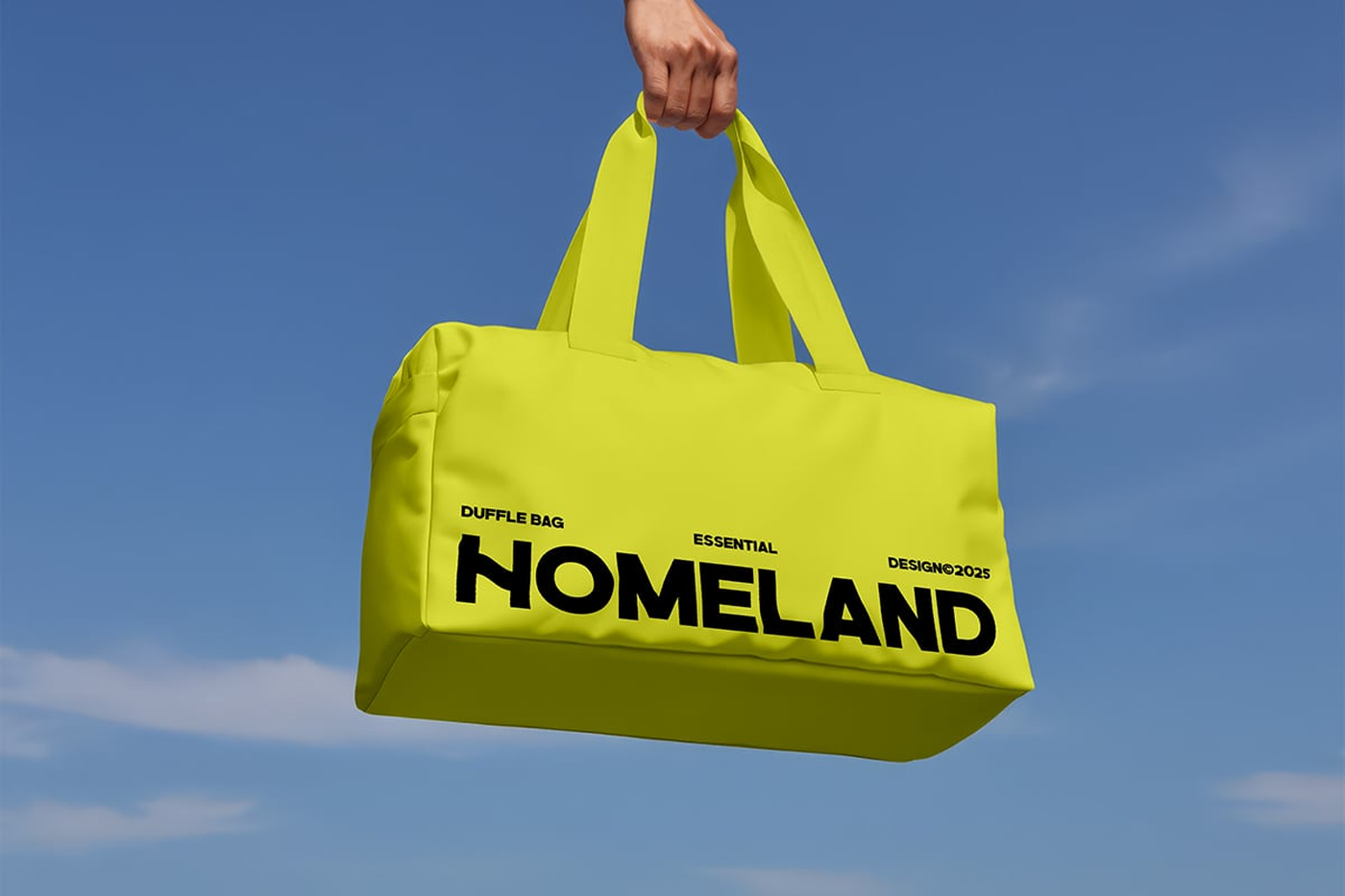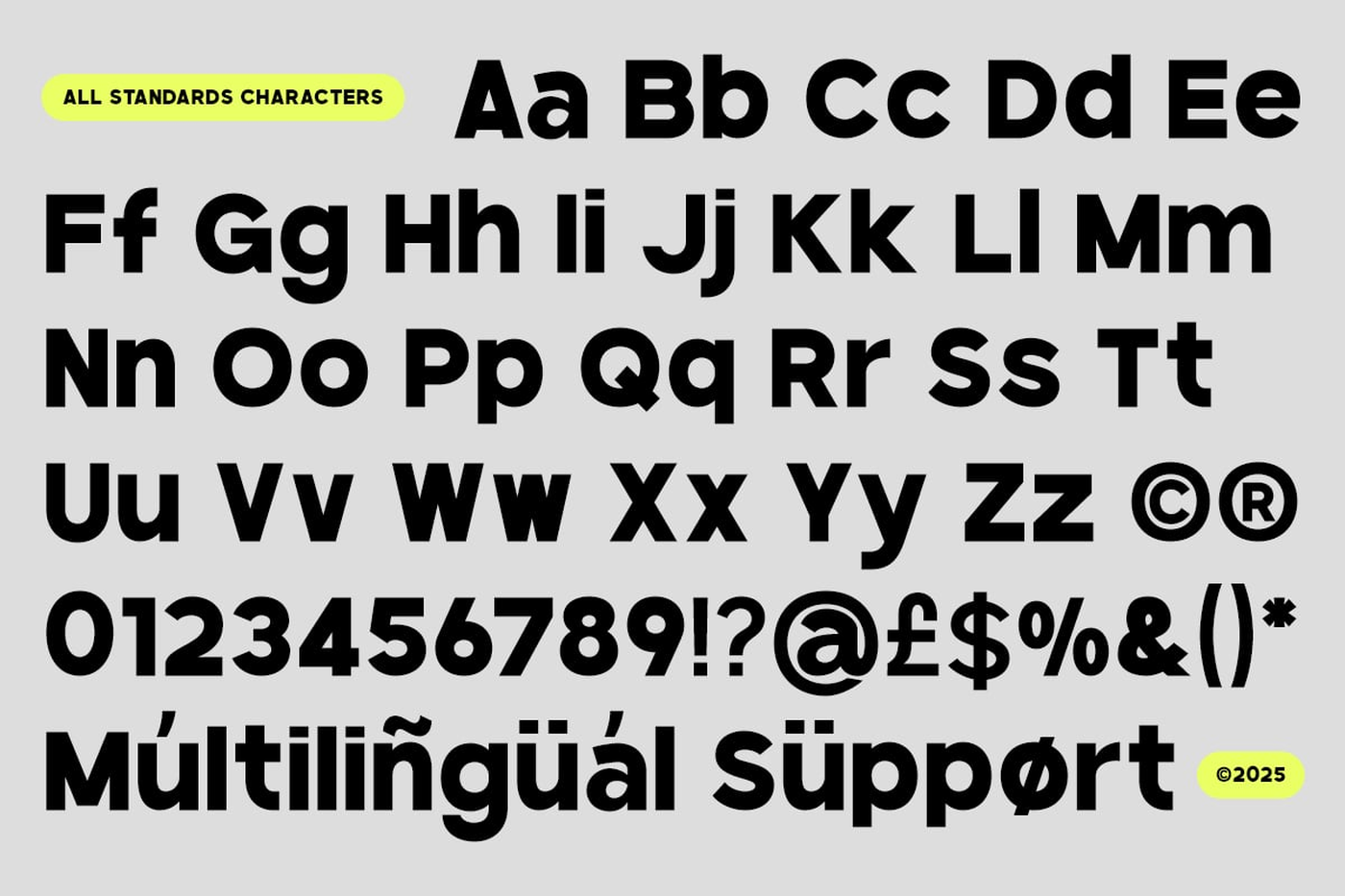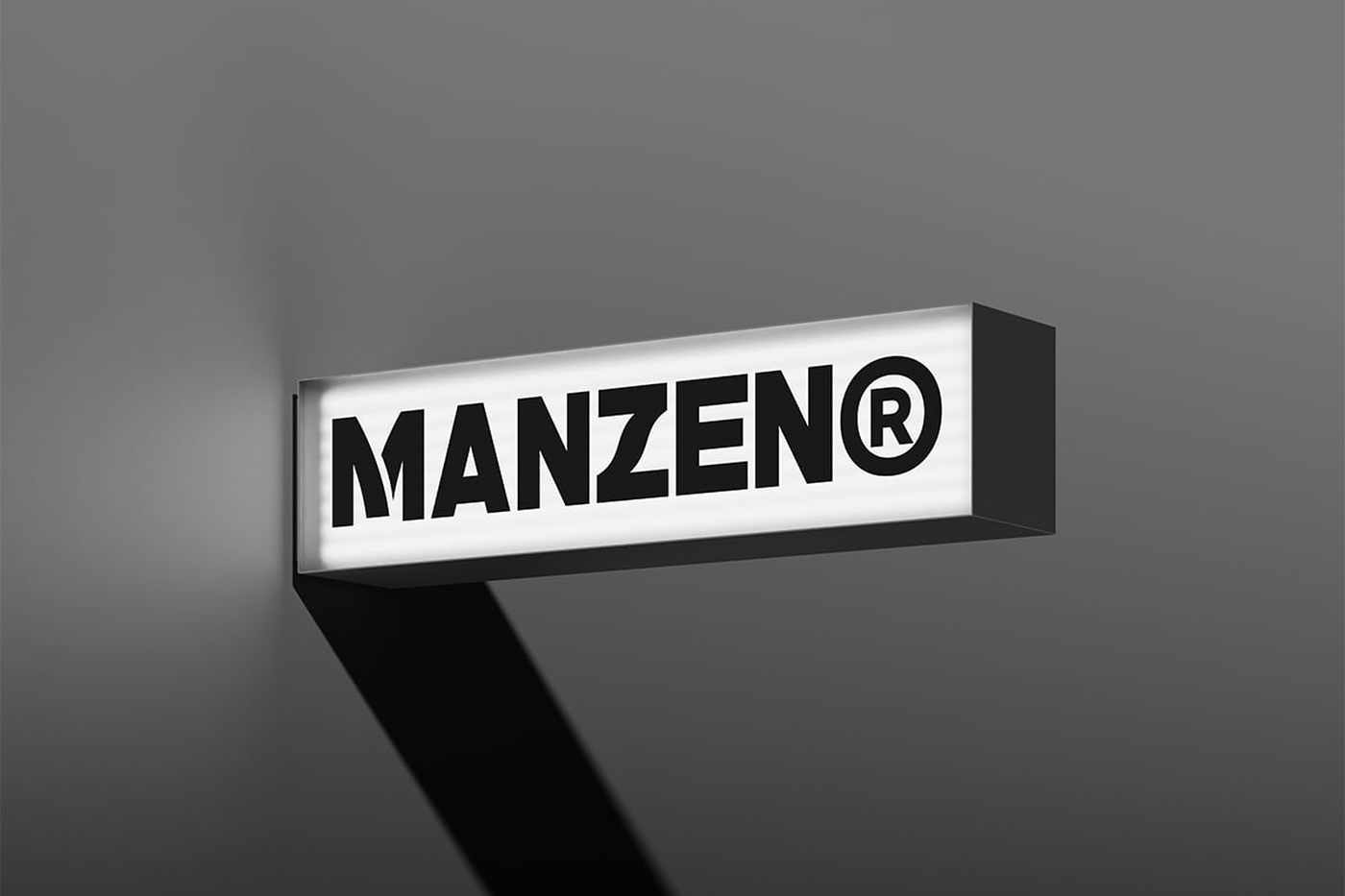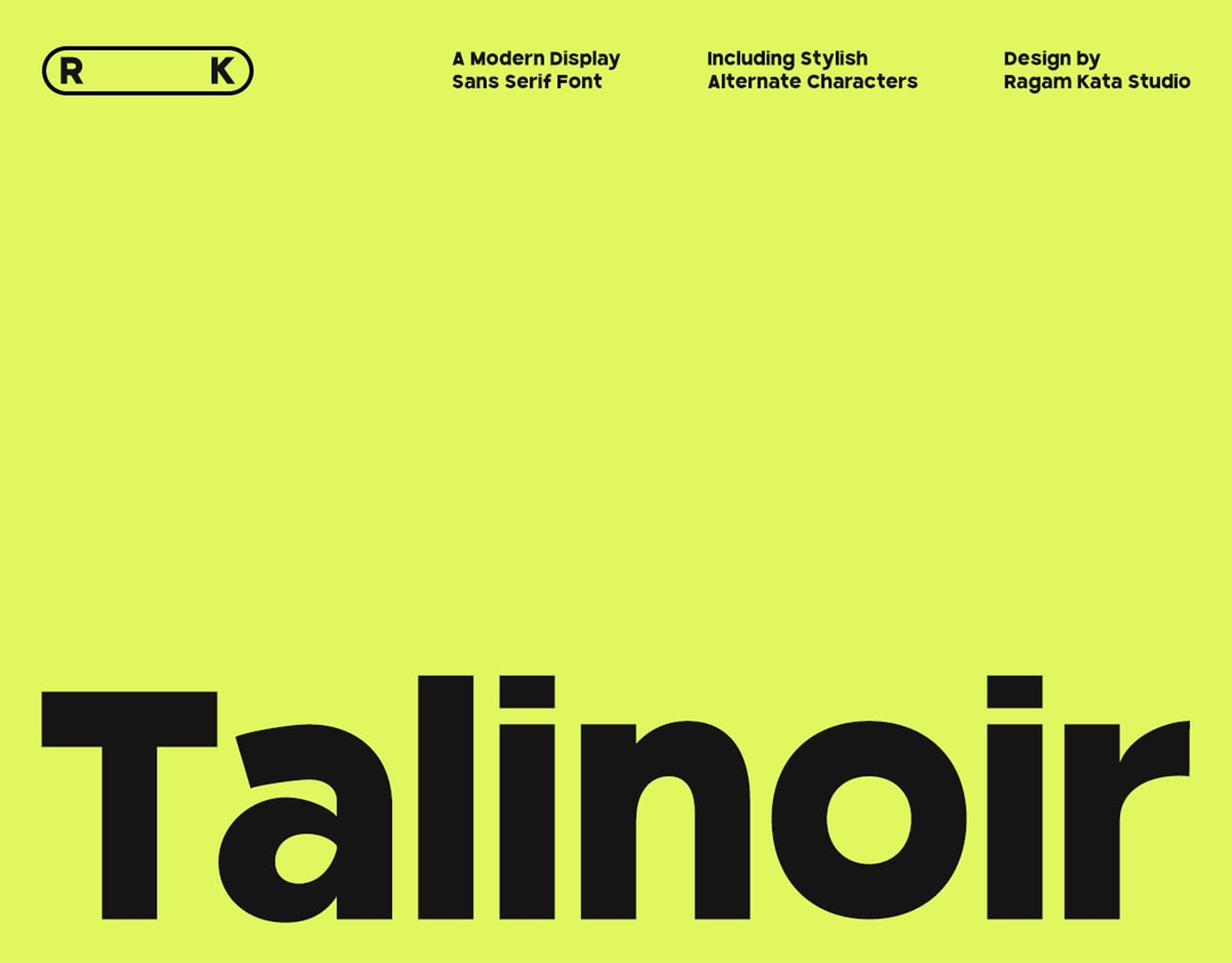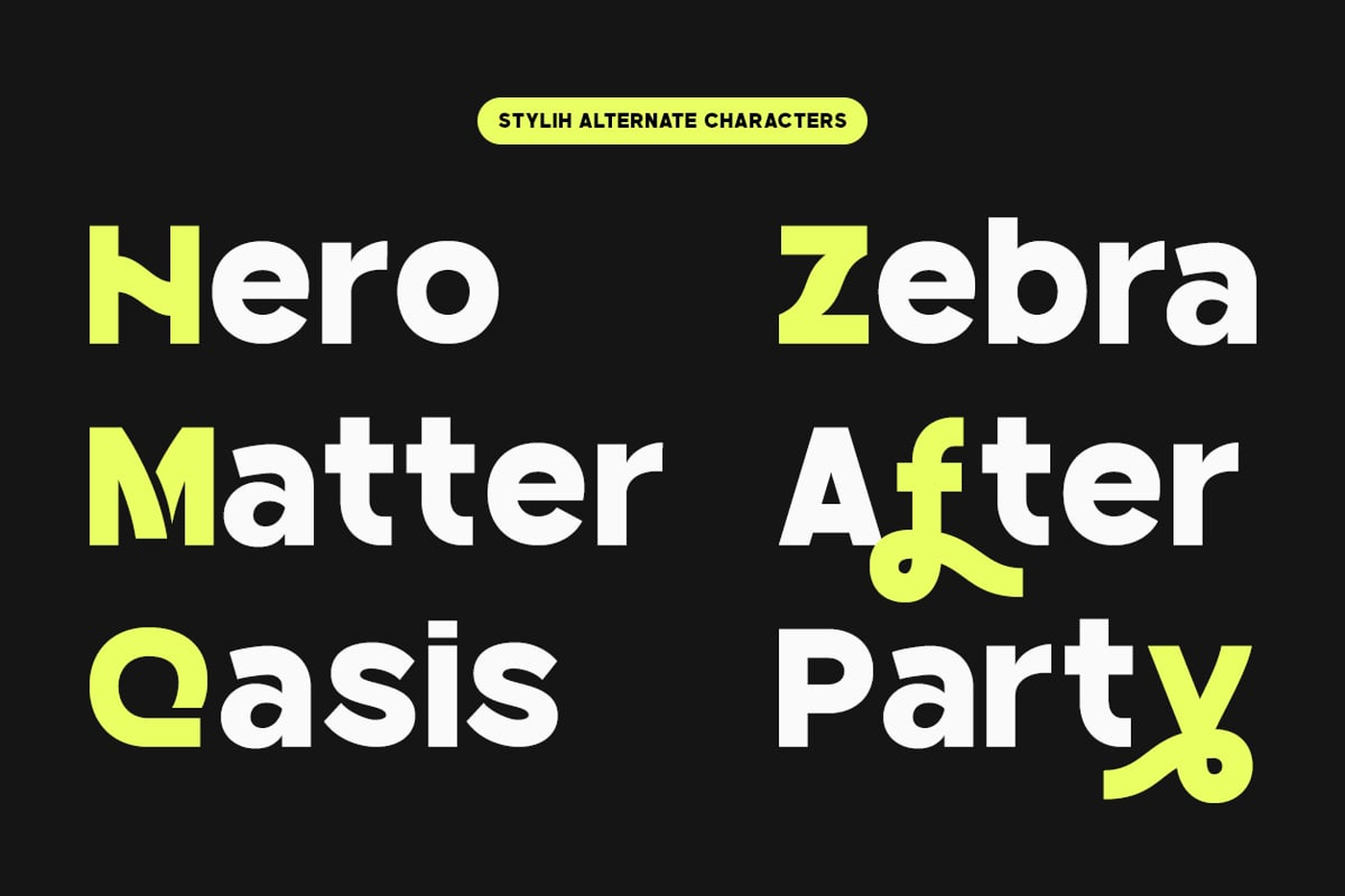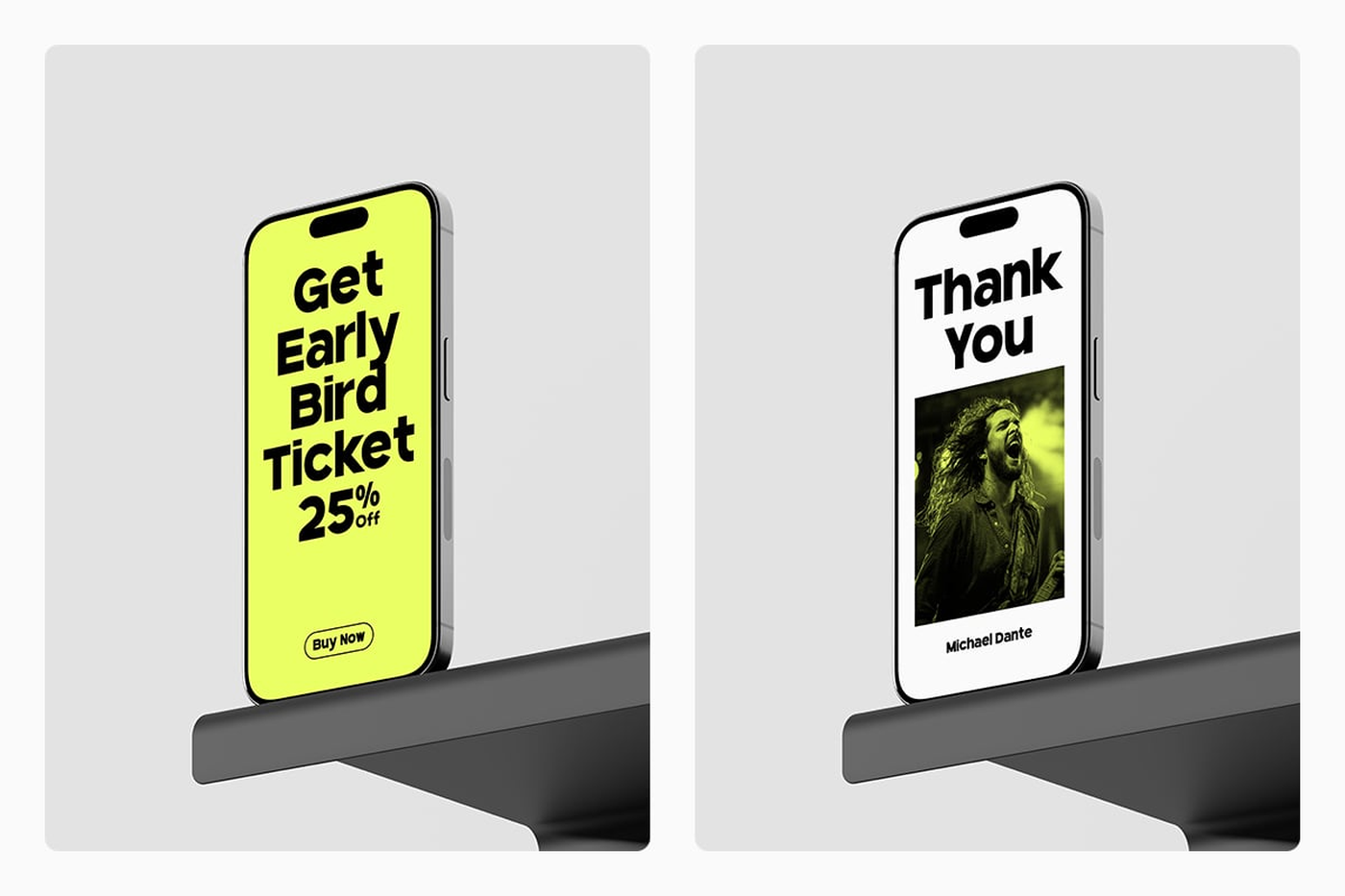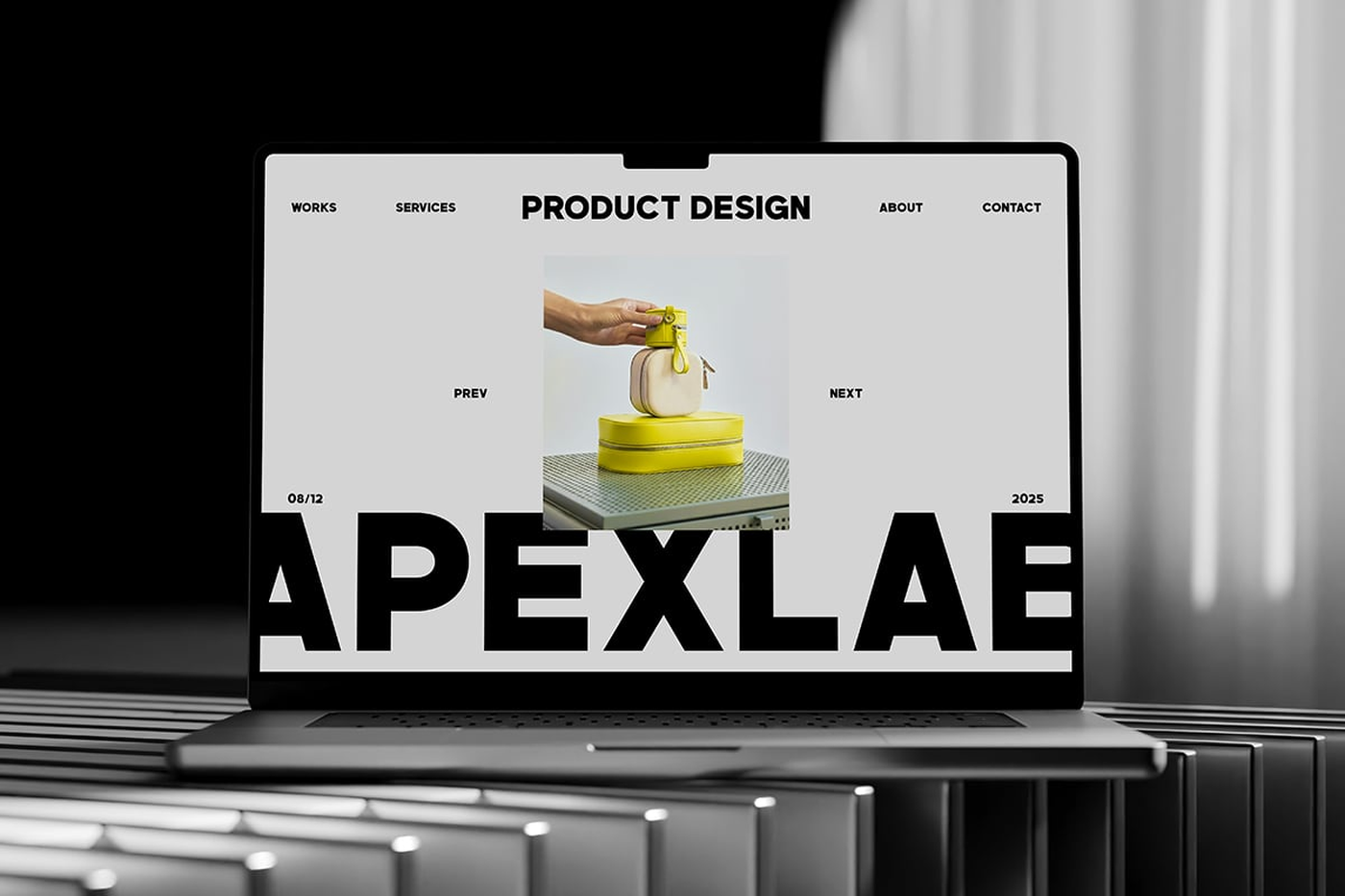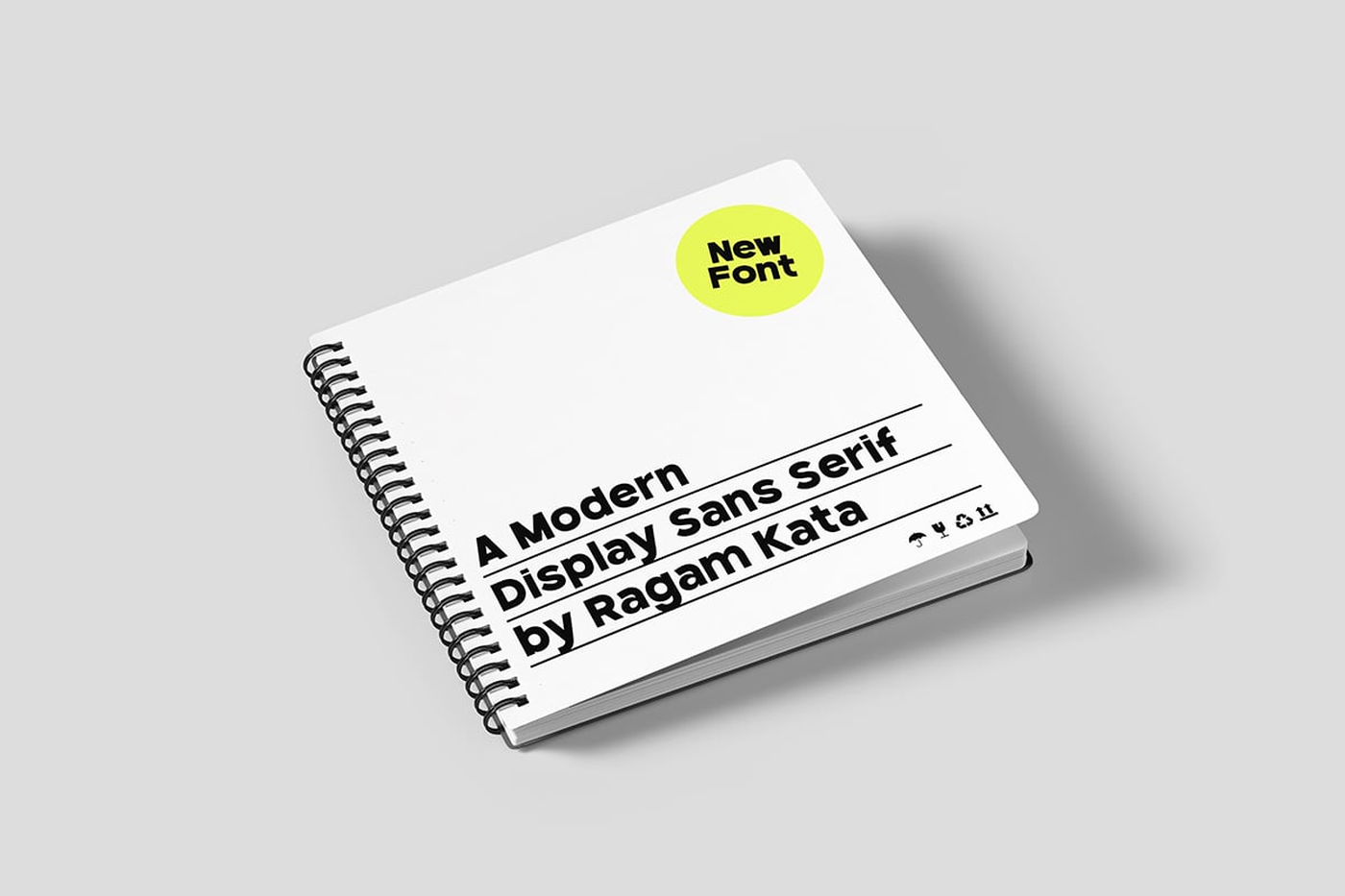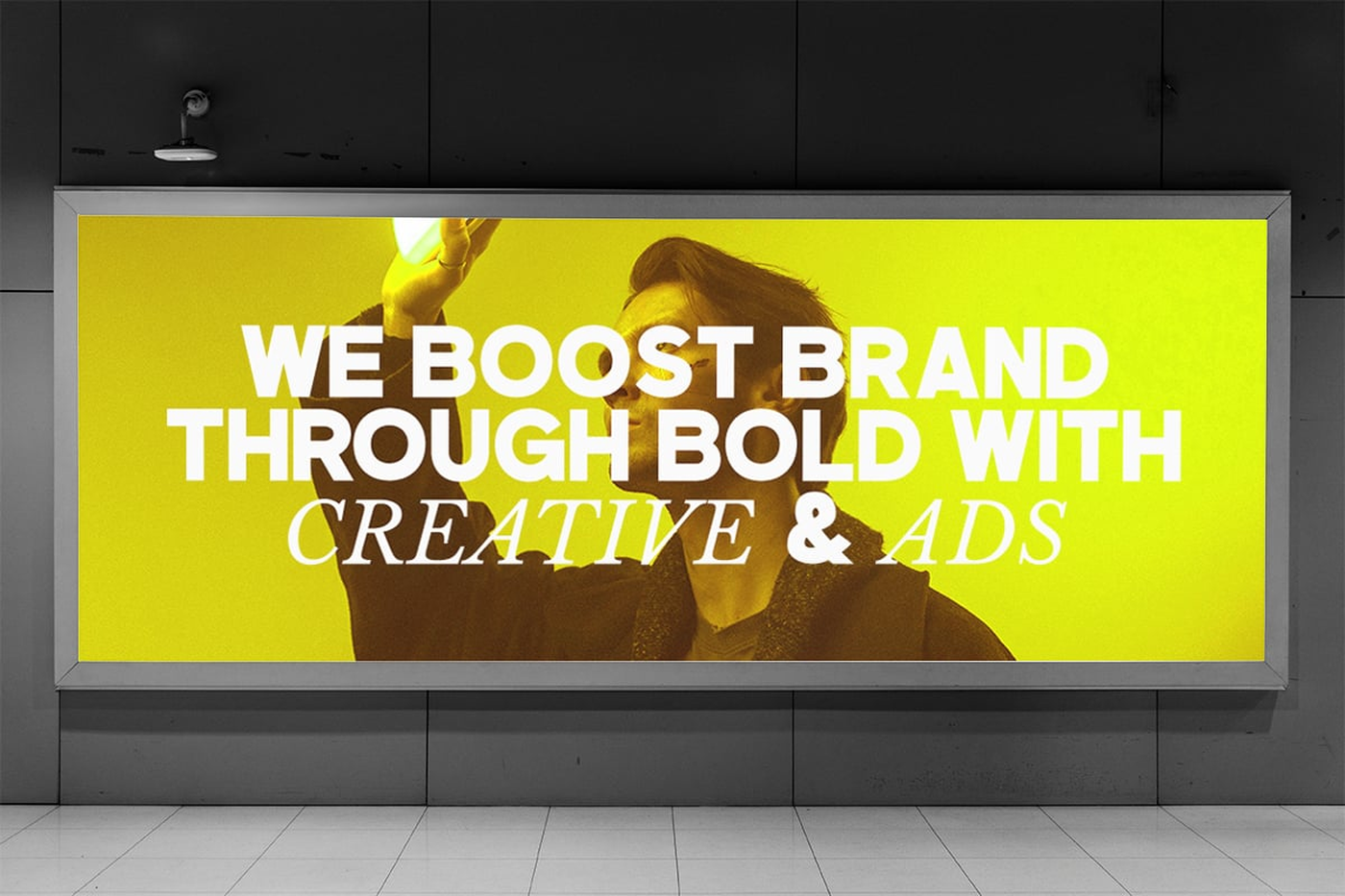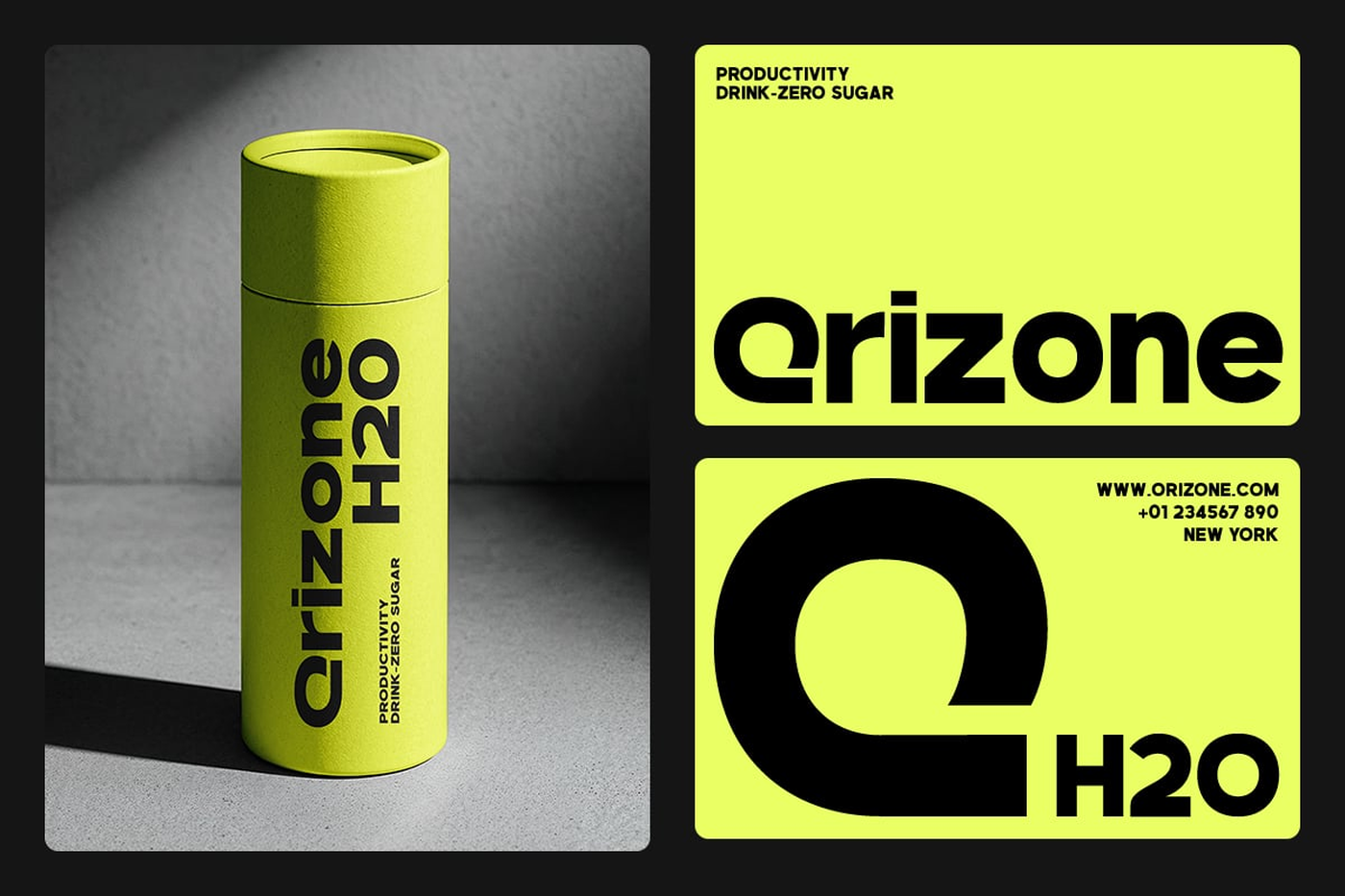
Talinoir - Modern Sans Serif Font
Talinoir is a bold modern display sans serif font designed for impactful visuals and contemporary branding. Its clean lines, geometric structure, and stylish alternate characters make it perfect for headlines, posters, logos, and editorial layouts. Whether used for digital or print designs, Talinoir adds a confident, professional, and minimalist touch that stands out in modern typography.
Designer: Ragamkata Studio
Font: Talinoir